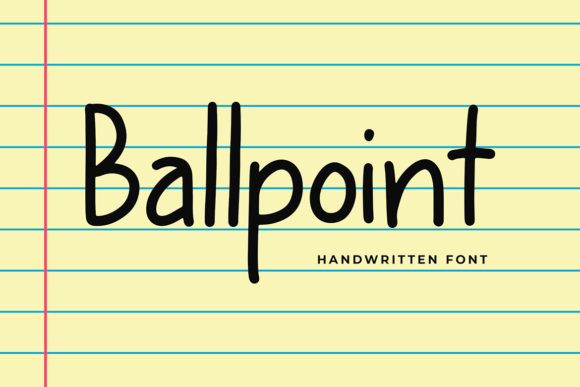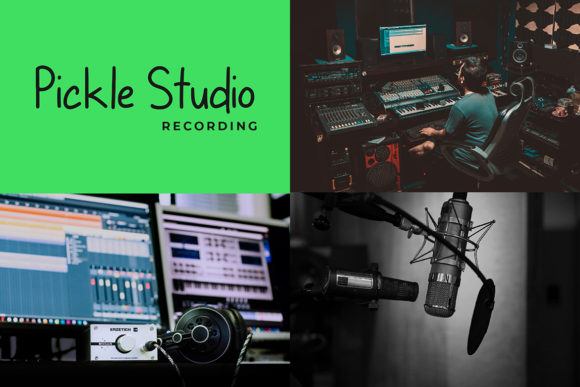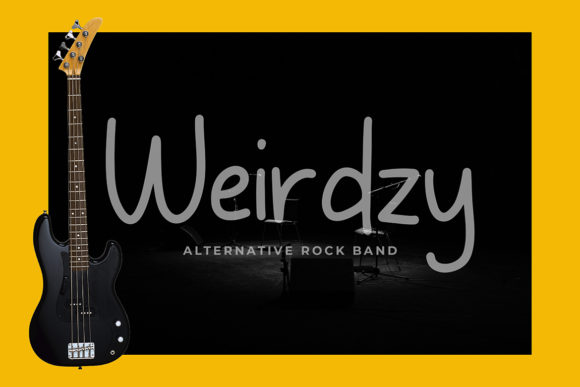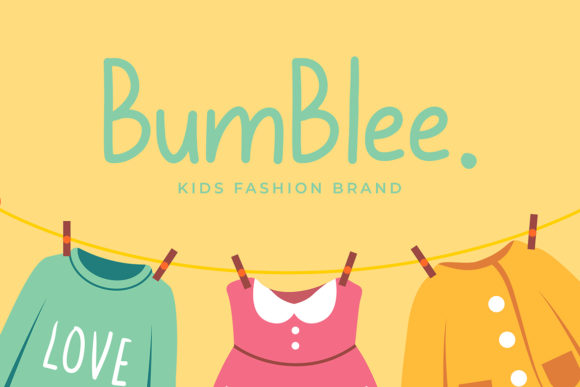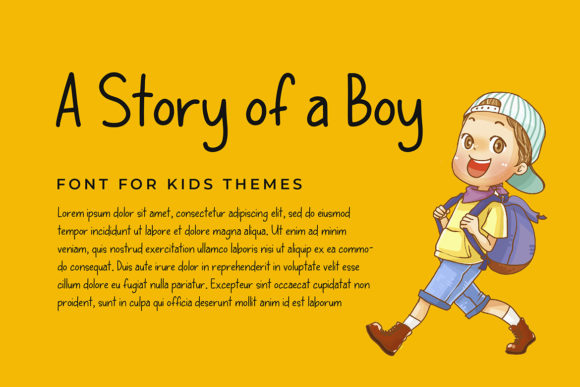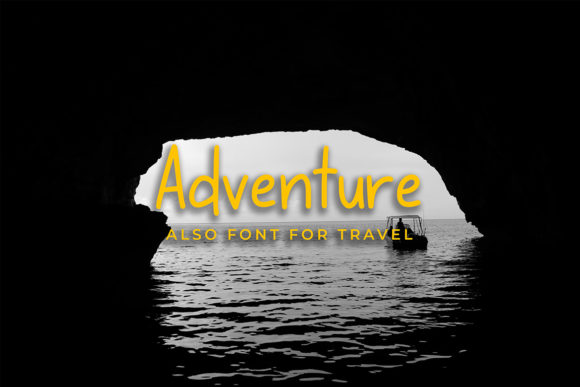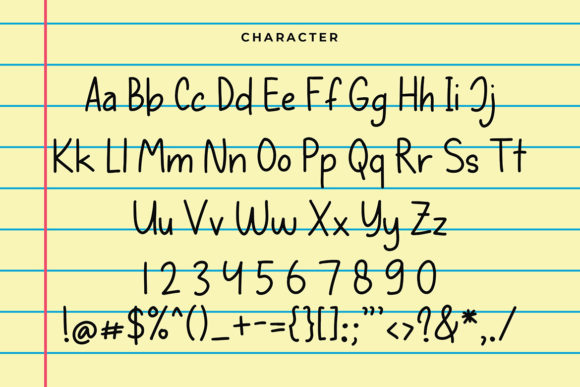
Ballpoint Font
About Ballpoint Font
Ballpoint is a playful and modern handwritten font. Its natural and simple style makes it incredibly fitting to a large pool of designs.